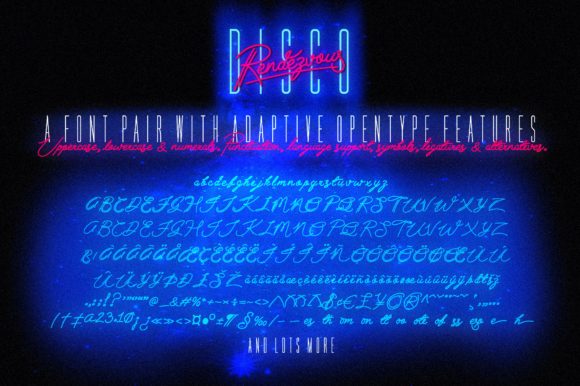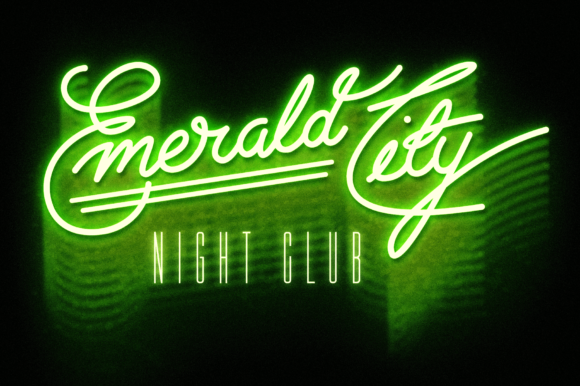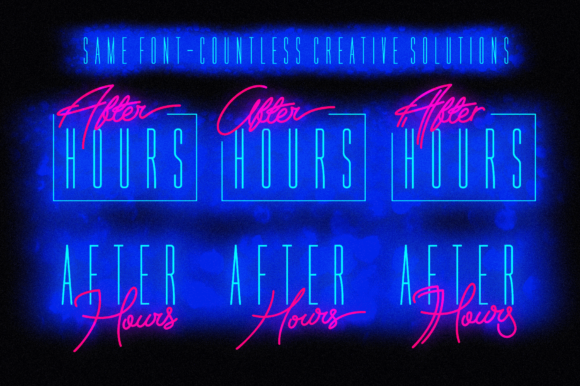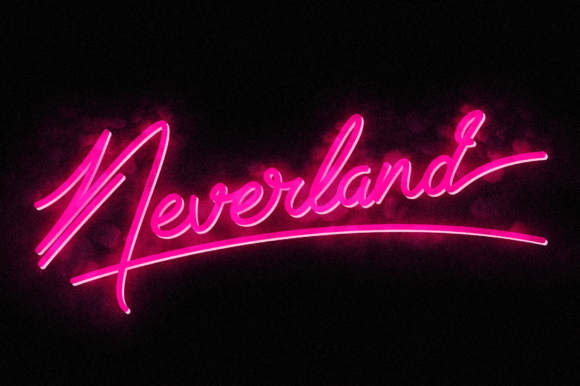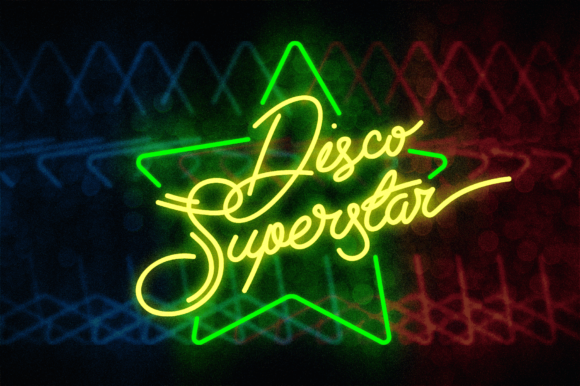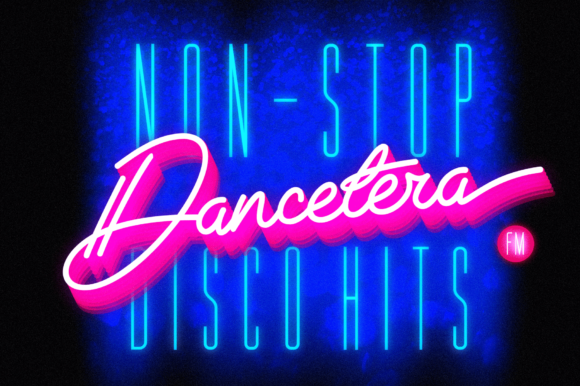
Disco Rendezvous Font: Elevate Your Designs with a Cool and Unique Duo Font
Are you tired of using the same old fonts in your designs? Look no further! Disco Rendezvous Font is here to revolutionize your creative projects with its cool and unique duo font style. This fantastic font combines a script and display font, offering you endless possibilities to take your designs to the next level.
What Makes Disco Rendezvous Font So Special?
Disco Rendezvous Font is not just any ordinary font. It’s a PUA (Private Use Area) encoded font, which means you can easily access all the glyphs and swashes without any hassle. This feature makes it incredibly user-friendly, allowing you to focus on creating stunning designs rather than struggling with complicated font mechanics.
The Perfect Combination: Script and Display Fonts
Disco Rendezvous Font boasts a beautiful script font paired with a bold display font, creating a match made in heaven. The script font is perfect for adding a touch of elegance and sophistication to your designs, while the display font adds a fun and playful vibe. This duo font combination is ideal for a wide range of projects, from branding and advertising to packaging and social media graphics.
With Disco Rendezvous Font, the creative possibilities are endless! Here are just a few ideas to get you started:
- Branding and Logos: Create a memorable brand identity with a unique and eye-catching logo that showcases your business’s personality.
- Social Media Graphics: Elevate your social media presence with stunning graphics that incorporate the Disco Rendezvous Font duo.
- Packaging Design: Make your products stand out on store shelves with eye-catching packaging that features this fantastic font.
- Advertising and Marketing: Grab attention with bold and creative ads that showcase your message in a fun and engaging way.
Why Choose Disco Rendezvous Font?
So, what sets Disco Rendezvous Font apart from other fonts on the market? Here are just a few reasons why designers and crafters love this font:
- Unique and Cool Design: Disco Rendezvous Font boasts a one-of-a-kind design that’s sure to make your projects stand out.
- Easy to Use: The PUA encoding makes it easy to access all glyphs and swashes, saving you time and frustration.
- Versatile: This duo font combination is perfect for a wide range of projects, from digital designs to print materials.
- High-Quality: Disco Rendezvous Font is designed with high-quality craftsmanship, ensuring that your designs look professional and polished.
Get Ready to Shine with Disco Rendezvous Font!